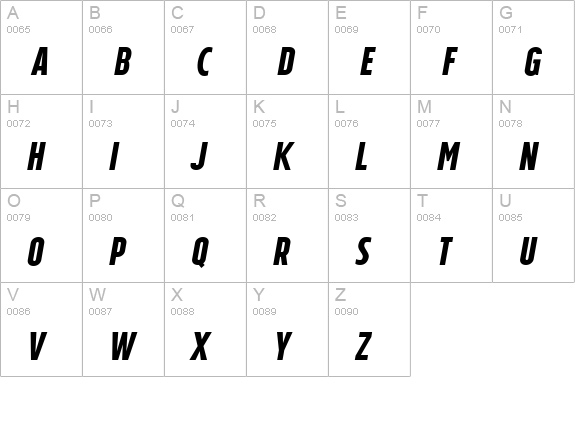
Tolyer Bold no.4 Oblique is a strong, high-contrast, italic variant in the Tolyer typeface family \xE2\x80\x94 well suited to headlines, attention-grabbing titles, and strong calls-to-action.
Tolyer Bold no.4 Oblique font is a versatile and modern typeface that exudes a sense of confidence and sophistication. Its bold and slanted style adds a dynamic touch to any design project, making it perfect for headlines, posters, and branding materials. The sharp edges and clean lines of this font give it a sleek and professional look that commands attention. What sets Tolyer Bold no.4 Oblique font apart is that it is available for free download at FontsMarket.com. This means that you can easily access this stylish font without any cost, making it a valuable resource for both personal and commercial use. Whether you're a designer looking to elevate your projects or an individual seeking a bold and impactful font, Tolyer Bold no.4 Oblique font is sure to impress with its modern aesthetic and effortless style. Download it today and see how this font can enhance your creative endeavors.